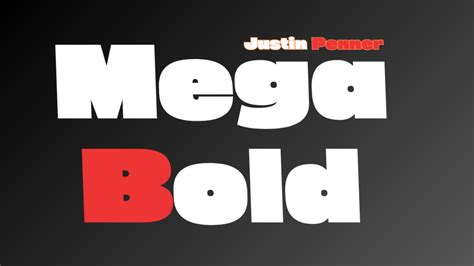
Mega Bold Font. Web megabold upright | fonts.com. Web mega bold free font.
Make a statement with bold fonts! Web mega bold free font. Web megabold upright | fonts.com. Megabold speaks louder, like a typeface megaphone. Enhance your design and grab attention with our selection of strong and. Web mega bold free font.
Web mega bold free font. Megabold speaks louder, like a typeface megaphone. Web megabold upright | fonts.com. Enhance your design and grab attention with our selection of strong and. Make a statement with bold fonts!